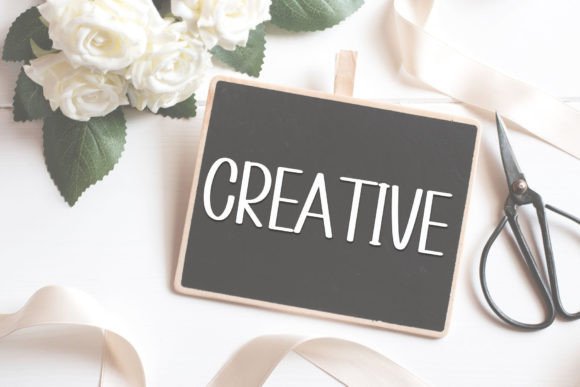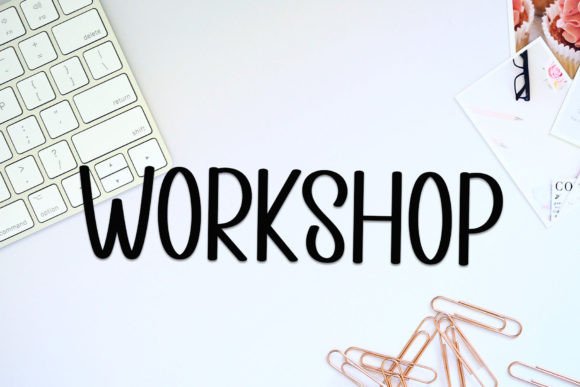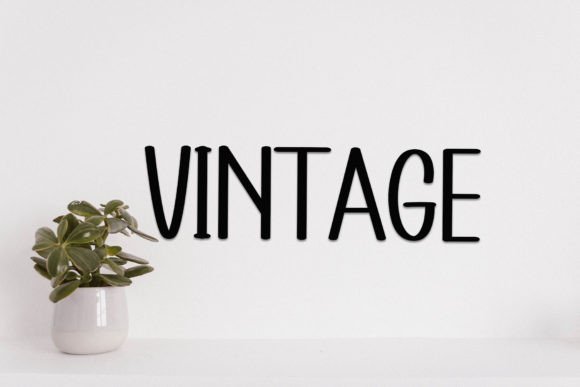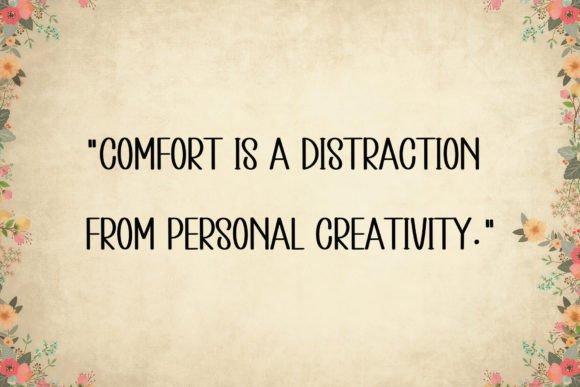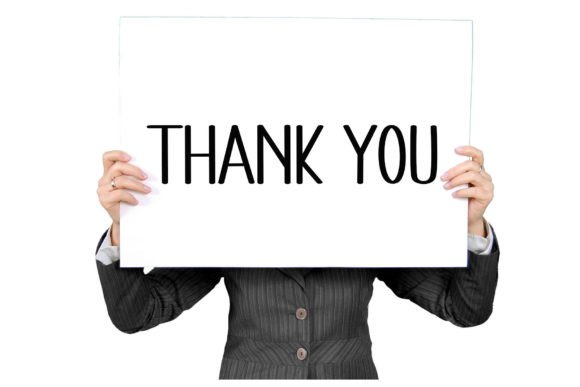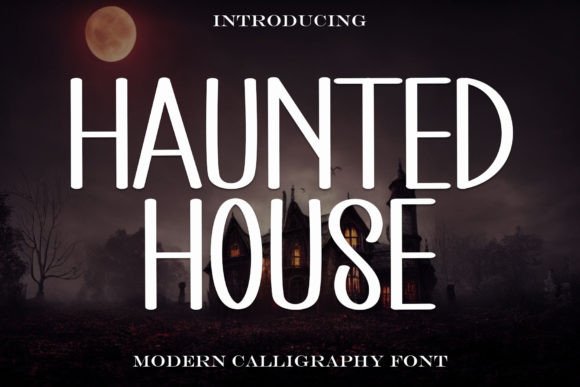
Unleash the Spookiness: Exploring the Haunted House Font
Are you ready to add a touch of eeriness to your designs? Look no further than the Haunted House Font, a beautiful handwritten font that exudes an elegant touch. This stunning font is perfect for designers and crafters who want to create spectacular designs that will leave a lasting impression.
The Charm of Haunted House Font
The Haunted House Font is described as a neat and beautiful handwritten font, and for good reason. Its incredibly distinct and timeless style is sure to capture the attention of your audience. The font’s elegant touch makes it perfect for a wide range of projects, from spooky Halloween designs to more sophisticated and elegant creations.
What Makes Haunted House Font So Special?
So, what sets the Haunted House Font apart from other fonts? Here are a few key features that make it a standout:
- Unique and distinctive style: The Haunted House Font has a one-of-a-kind look that’s sure to make your designs stand out.
- Elegant touch: Despite its spooky name, this font has a sophisticated and elegant feel that’s perfect for a wide range of projects.
- Timeless appeal: The Haunted House Font is a classic design that will never go out of style.
- Versatile: This font can be used for everything from titles and headings to body text and more.
How to Use Haunted House Font in Your Designs
Ready to unleash the spookiness of the Haunted House Font in your designs? Here are a few ideas to get you started:
- Halloween designs: The Haunted House Font is perfect for creating spooky Halloween designs, from invitations to posters and more.
- Wedding and event designs: The font’s elegant touch makes it a great choice for wedding and event designs, such as invitations, programs, and more.
- Branding and packaging: Use the Haunted House Font to create unique and eye-catching branding and packaging designs.
- Digital art and illustrations: The font’s distinctive style makes it a great choice for digital art and illustrations.
Tips for Working with Haunted House Font
Here are a few tips to keep in mind when working with the Haunted House Font:
- Experiment with different sizes and colors: Play around with different sizes and colors to find the perfect combination for your design.
- Pair with other fonts: Try pairing the Haunted House Font with other fonts to create a unique and interesting look.
- Use it sparingly: Because of its distinctive style, it’s best to use the Haunted House Font sparingly to avoid overwhelming your design.
The Haunted House Font is a beautiful and unique handwritten font that’s perfect for designers and crafters who want to add a touch of elegance and spookiness to their designs. With its incredibly distinct and timeless style, this font is sure to make your designs stand out. So why wait? Download the Haunted House Font today and unleash the spookiness in your designs!
- What type of font is Haunted House Font?: The Haunted House Font is a handwritten font.